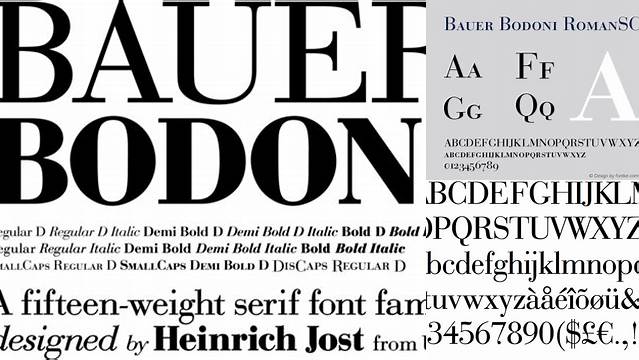
The Allure of Bauer Bodoni: Why It's Still King
Alright, so what's the big deal about Bauer Bodoni? Well, it's a serif font, which means it has those little decorative strokes (serifs) at the end of letters. It was designed by Giambattista Bodoni, an Italian typographer, way back in the late 18th century. Pretty cool, right? The font family is known for its high contrast between thick and thin strokes, giving it a sophisticated and elegant look. Think of it as the Audrey Hepburn of fonts – timeless and chic.
Bauer Bodoni exudes a sense of class and refinement. It's a go-to for anything that needs a touch of luxury, from high-end branding to editorial design. Its clean lines and graceful curves make it incredibly versatile. You can use it for headlines, body text, or even logos. The versatility makes it a favorite among graphic designers, and for a good reason. It’s not just about aesthetics; it's about the message it conveys. This font says, “I’m important, and I have good taste.” In a world of digital noise, the simplicity and elegance of Bauer Bodoni allow your message to cut through the clutter. This typeface is perfect for various uses because of its adaptability. Using it shows a dedication to quality and a keen eye for design. It's more than just a font; it's a statement.
The beauty of Bauer Bodoni lies in its historical context. It represents a period of artistic excellence, inspired by Roman inscriptions. Its crisp lines and sophisticated appearance are still relevant today. When you use Bauer Bodoni, you're tapping into this rich history and bringing a piece of it into your designs. Understanding the origin of the font helps to appreciate its value and beauty. It is the epitome of design. By choosing Bauer Bodoni, you can elevate your creative project and make it a work of art.
Decoding the Bauer Bodoni Family: Understanding the Variations
The Bauer Bodoni isn't just one single font; it's a family. This means it comes in various weights and styles, giving you plenty of options to play with. You'll often find weights like regular, bold, italic, and maybe even light or black. The different weights let you create visual hierarchy and add emphasis to your text. For example, you might use a bold weight for headlines and a regular weight for body text. The variations are critical for making your design visually appealing. The italic versions add a touch of elegance and sophistication, perfect for emphasizing words or phrases.
Understanding the different variations of Bauer Bodoni is essential for a successful design. Start by experimenting with different weights and styles to see what looks best for your project. Consider how the different weights work together. Think about the overall tone and mood you want to create. A combination of different variations of Bauer Bodoni provides a dynamic appearance. Use a regular weight for the main body text, for example, and a bold weight for emphasis or headlines. This creates a clear hierarchy. Be careful when mixing different fonts. Make sure that the different styles and weights complement each other. Choose the weight and style according to the role of the text. Consider the context and message of your design. All of these variations of Bauer Bodoni help to achieve a professional and polished look.
Bauer Bodoni in Action: Design Ideas and Inspirations
Now that you've got your bauer bodoni std font family free download (or are about to!), how do you use it? The possibilities are endless! One of the most common uses is in branding. Brands often use Bauer Bodoni to create a sophisticated and memorable logo. Think about high-end fashion brands, luxury hotels, or even art galleries. It conveys a sense of quality and prestige. Bauer Bodoni is also an excellent choice for editorial design. It works beautifully in magazines, books, and other publications. The clean lines and elegant curves make it easy to read and visually appealing. Experiment with pairing it with other fonts. A sans-serif font can provide contrast.
Bauer Bodoni is versatile and adaptable: Use it for different projects. The font can be applied to different scenarios. Apply it to various designs. Apply it to different styles. Experiment with different styles. Try various styles.
Combine it with different elements. Combine it with other design elements. Consider the project. Consider the purpose of the project. Get inspired. Seek inspiration. By using Bauer Bodoni, you can design a good project. By using it in different projects, you can explore new design styles. Make sure the design is consistent with the project goals.